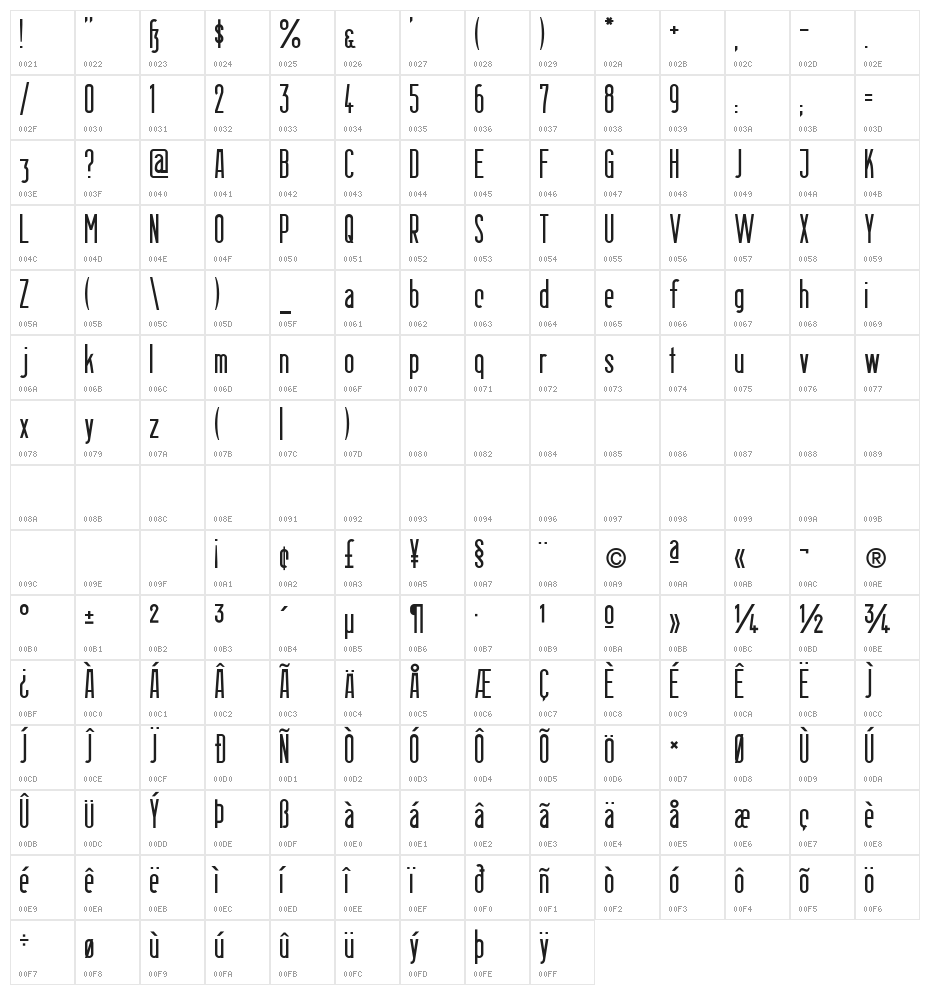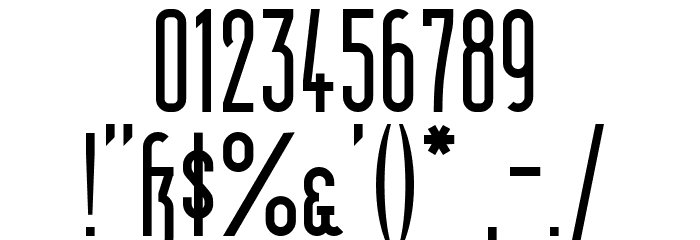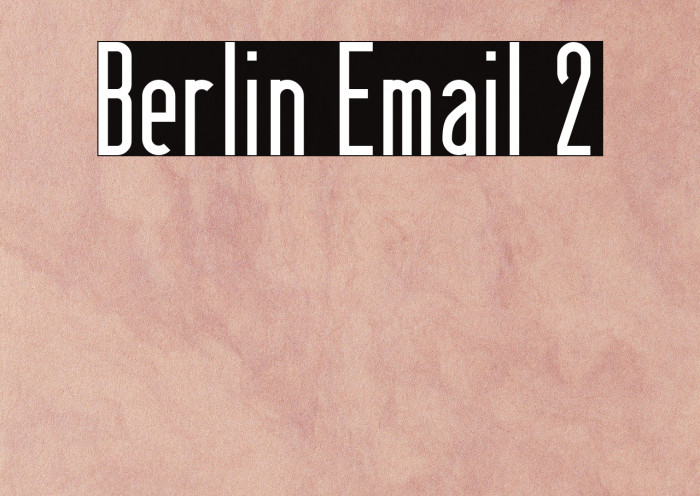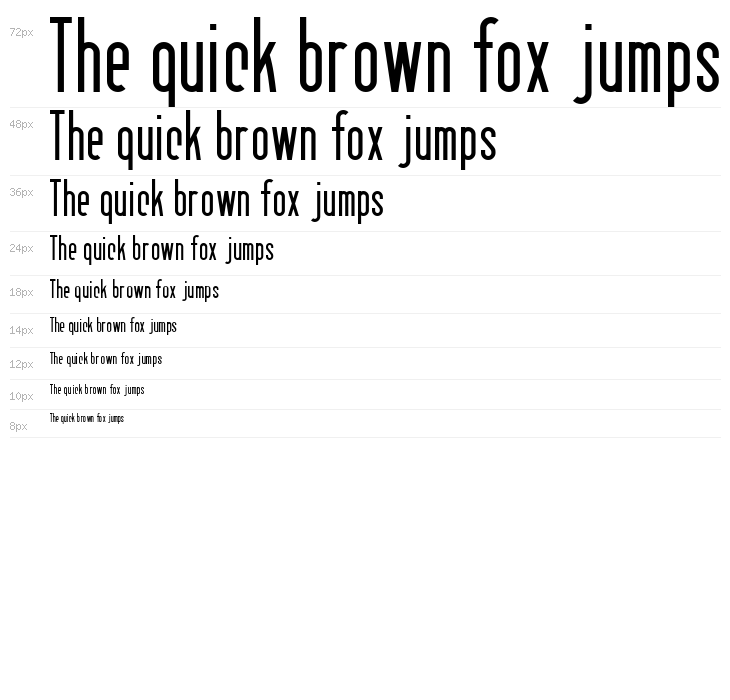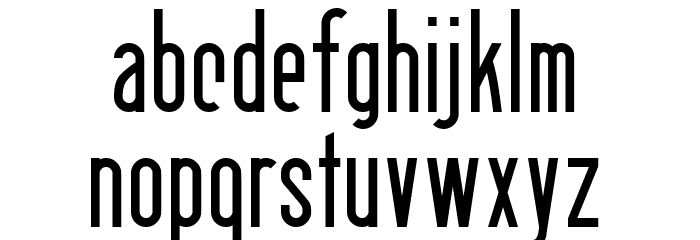
Berlin Email 2 Font
This font features a tall, narrow design with clean, straight lines and minimal curves, giving it a modern and sleek appearance. The uppercase letters are particularly elongated, contributing to a sense of height and elegance. The lowercase letters maintain a consistent style, with a slightly more rounded approach, balancing the overall sharpness of the font. Numbers are clear and legible, following the same narrow structure. Special characters are well-integrated, ensuring versatility in various design contexts. The uniformity in stroke width across all characters provides a cohesive look, making it suitable for contemporary design projects.